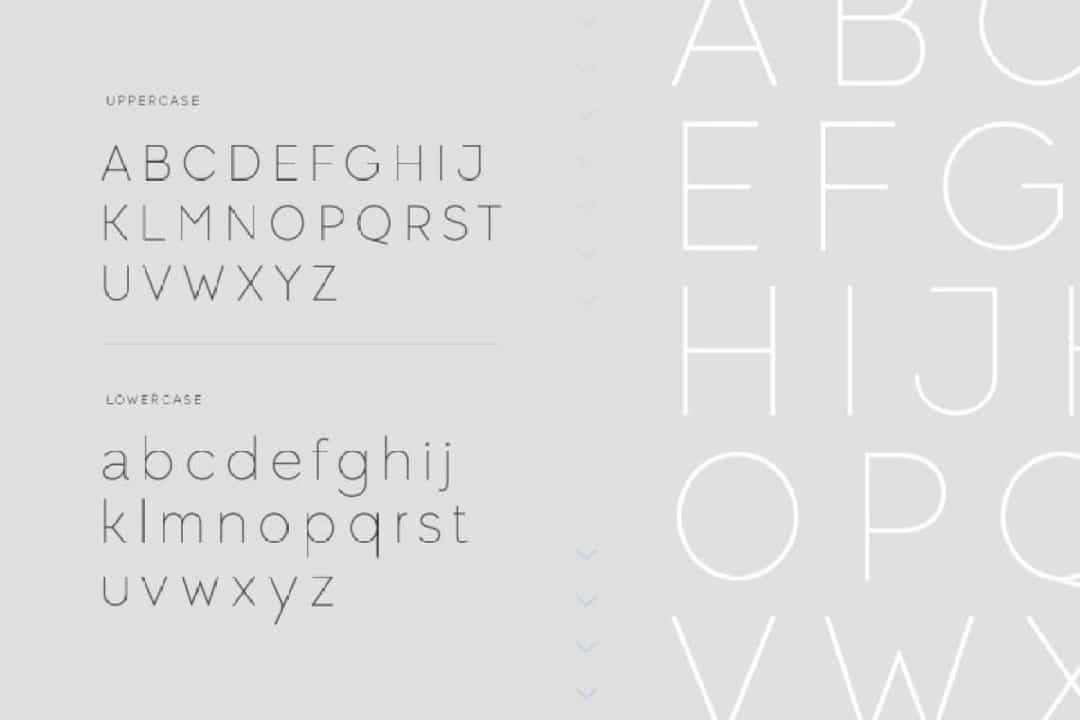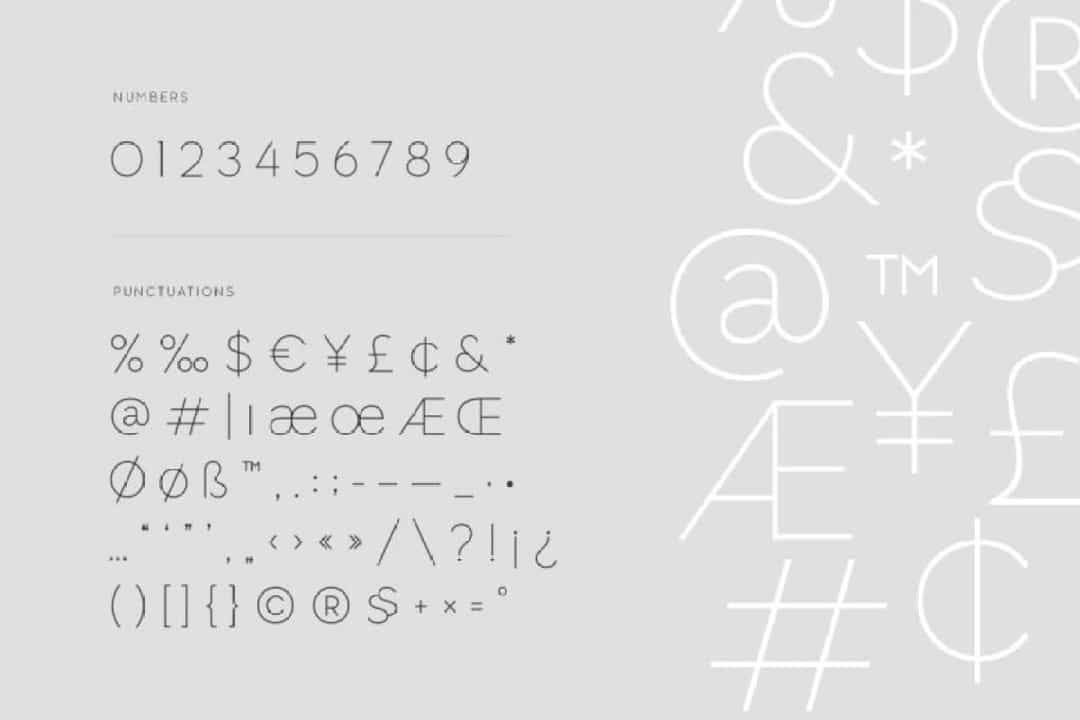
A brand new sans serif font was specifically created with modernity and corporate imagery in mind to elevate your brand. Working closely with designers or owners who require options that add character and contemporariness is so rewarding.